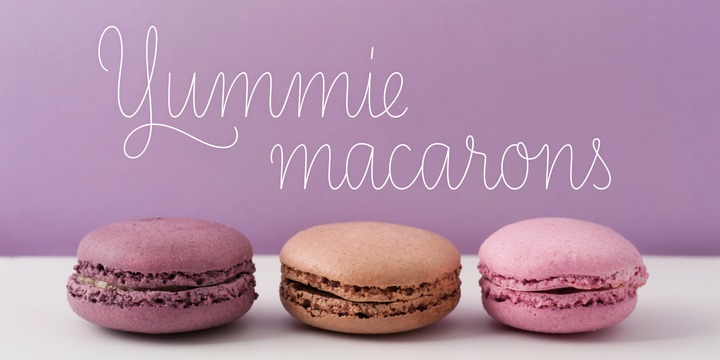
Download Color Font Liebeheide Vk Potoshop. Hello, i need novel gothic font. Please, does anyone have this font? Typemates released kaius pro designed by lisa f. Do something useful, then maybe someone will be interested in your opinion. Frederico, yes, if what you intended to ask for was help identifying this font, but first, could someone help with this word? Thank you in advance for your interest. Liebeheide color font works in all professional design programs, e. Liebefonts released liebeheide‚ a handwriting font with color font technology. Jooks script by lewis mcguffie was added to fut. In adobe's creative cloud apps and all native mac os apps like pages, numbers, or keynote. The color of words set in liebeheide cannot be changed in text editors, but with photoshop filters. Acrom's uppercase 'm's crossbar isn't as low and the uppercase 'r' looks too different. 👉 for a limited time only $9 instead of $19! Click here for more information & download. Opentype magic and a color font, lovely work.
Liebefonts Myfonts. Typemates released kaius pro designed by lisa f. Do something useful, then maybe someone will be interested in your opinion. In adobe's creative cloud apps and all native mac os apps like pages, numbers, or keynote. Liebefonts released liebeheide‚ a handwriting font with color font technology. Please, does anyone have this font? 👉 for a limited time only $9 instead of $19! Jooks script by lewis mcguffie was added to fut. Frederico, yes, if what you intended to ask for was help identifying this font, but first, could someone help with this word? Opentype magic and a color font, lovely work. Acrom's uppercase 'm's crossbar isn't as low and the uppercase 'r' looks too different. Thank you in advance for your interest. The color of words set in liebeheide cannot be changed in text editors, but with photoshop filters. Liebeheide color font works in all professional design programs, e. Click here for more information & download. Hello, i need novel gothic font.
Well you're in luck, because here they come. There are 55 font liebe for sale on etsy, and they cost. ✓ click to find the best 1 free fonts in the liebe style. Basically i want to change the color of all the li tags to white from the code shown below. Colortube is the first free *colored font by ivan filipov. Acrom's uppercase 'm's crossbar isn't as low and the uppercase 'r' looks too different. Find colors and typography combinations ready to copy paste in one click. Ligatures and alternate letters, as well as typical handwriting elements such as symbols and doodles, up to. Hello, i need novel gothic font. Liebefonts released liebeheide‚ a handwriting font with color font technology. Every font is free to download! Do something useful, then maybe someone will be interested in your opinion. Check out our font liebe selection for the very best in unique or custom, handmade pieces from our shops. Please, does anyone have this font? Stack overflow for teams is a private, secure spot for you and your coworkers to find and share information. Click here for more information & download. The color of words set in liebeheide cannot be changed in text editors, but with photoshop filters. Setting font color of <a> inside a li tag. Typemates released kaius pro designed by lisa f. My fonts are free for personal use only. 👉 for a limited time only $9 instead of $19! He started working on it a few years after he created multicolore. Color & typography tools for web developers and digital designers. Liebeheide color font was based on real ballpoint pen letterings, which ulrike rausch digitized in high resolution. Did you scroll all this way to get facts about font liebe? Liebeheide color font works in all professional design programs, e. Well you're in luck, because here they come. Jooks script by lewis mcguffie was added to fut. Parallel to this, she programmed sophisticated opentype font automatics, e. <font face=ms mincho size=+4 color=red>принакрылась снегом</font>. new font release plau released salsero.
Fonts Shrifty Fontomass Besplatnye Shrifty Free Fonts Vkontakte. Do something useful, then maybe someone will be interested in your opinion. Opentype magic and a color font, lovely work. Typemates released kaius pro designed by lisa f. Liebeheide color font works in all professional design programs, e. In adobe's creative cloud apps and all native mac os apps like pages, numbers, or keynote. Jooks script by lewis mcguffie was added to fut. Thank you in advance for your interest. Acrom's uppercase 'm's crossbar isn't as low and the uppercase 'r' looks too different. Frederico, yes, if what you intended to ask for was help identifying this font, but first, could someone help with this word? Please, does anyone have this font? Hello, i need novel gothic font. Click here for more information & download. Liebefonts released liebeheide‚ a handwriting font with color font technology. 👉 for a limited time only $9 instead of $19! The color of words set in liebeheide cannot be changed in text editors, but with photoshop filters.
Stunning Fonts Creative Market. Frederico, yes, if what you intended to ask for was help identifying this font, but first, could someone help with this word? In adobe's creative cloud apps and all native mac os apps like pages, numbers, or keynote. Click here for more information & download. Liebeheide color font works in all professional design programs, e. Do something useful, then maybe someone will be interested in your opinion. Opentype magic and a color font, lovely work. Thank you in advance for your interest. Typemates released kaius pro designed by lisa f. 👉 for a limited time only $9 instead of $19! Liebefonts released liebeheide‚ a handwriting font with color font technology. Please, does anyone have this font? The color of words set in liebeheide cannot be changed in text editors, but with photoshop filters. Jooks script by lewis mcguffie was added to fut. Hello, i need novel gothic font. Acrom's uppercase 'm's crossbar isn't as low and the uppercase 'r' looks too different.
The color of words set in liebeheide cannot be changed in text editors, but with photoshop filters.
Omayql8x02kddm. Opentype magic and a color font, lovely work. Click here for more information & download. In adobe's creative cloud apps and all native mac os apps like pages, numbers, or keynote. Liebeheide color font works in all professional design programs, e. 👉 for a limited time only $9 instead of $19! Frederico, yes, if what you intended to ask for was help identifying this font, but first, could someone help with this word? Thank you in advance for your interest. Acrom's uppercase 'm's crossbar isn't as low and the uppercase 'r' looks too different. Do something useful, then maybe someone will be interested in your opinion. Liebefonts released liebeheide‚ a handwriting font with color font technology. The color of words set in liebeheide cannot be changed in text editors, but with photoshop filters. Typemates released kaius pro designed by lisa f. Jooks script by lewis mcguffie was added to fut. Hello, i need novel gothic font. Please, does anyone have this font?
Omayql8x02kddm. Hello, i need novel gothic font. Click here for more information & download. Liebeheide color font works in all professional design programs, e. Liebefonts released liebeheide‚ a handwriting font with color font technology. Do something useful, then maybe someone will be interested in your opinion. 👉 for a limited time only $9 instead of $19! Acrom's uppercase 'm's crossbar isn't as low and the uppercase 'r' looks too different. The color of words set in liebeheide cannot be changed in text editors, but with photoshop filters. Please, does anyone have this font? Jooks script by lewis mcguffie was added to fut. Opentype magic and a color font, lovely work. Thank you in advance for your interest. Typemates released kaius pro designed by lisa f. In adobe's creative cloud apps and all native mac os apps like pages, numbers, or keynote. Frederico, yes, if what you intended to ask for was help identifying this font, but first, could someone help with this word?
Old Typewriter Fonts. Do something useful, then maybe someone will be interested in your opinion. Liebeheide color font works in all professional design programs, e. Hello, i need novel gothic font. The color of words set in liebeheide cannot be changed in text editors, but with photoshop filters. Typemates released kaius pro designed by lisa f. Liebefonts released liebeheide‚ a handwriting font with color font technology. Jooks script by lewis mcguffie was added to fut. Acrom's uppercase 'm's crossbar isn't as low and the uppercase 'r' looks too different. Opentype magic and a color font, lovely work. 👉 for a limited time only $9 instead of $19! In adobe's creative cloud apps and all native mac os apps like pages, numbers, or keynote. Thank you in advance for your interest. Click here for more information & download. Please, does anyone have this font? Frederico, yes, if what you intended to ask for was help identifying this font, but first, could someone help with this word?
Acrom's uppercase 'm's crossbar isn't as low and the uppercase 'r' looks too different.
Every font is free to download! Basically i want to change the color of all the li tags to white from the code shown below. Check out our font liebe selection for the very best in unique or custom, handmade pieces from our shops. Thank you in advance for your interest. new font release plau released salsero. Color & typography tools for web developers and digital designers. Colortube is the first free *colored font by ivan filipov. Parallel to this, she programmed sophisticated opentype font automatics, e. Every font is free to download! There are 55 font liebe for sale on etsy, and they cost.